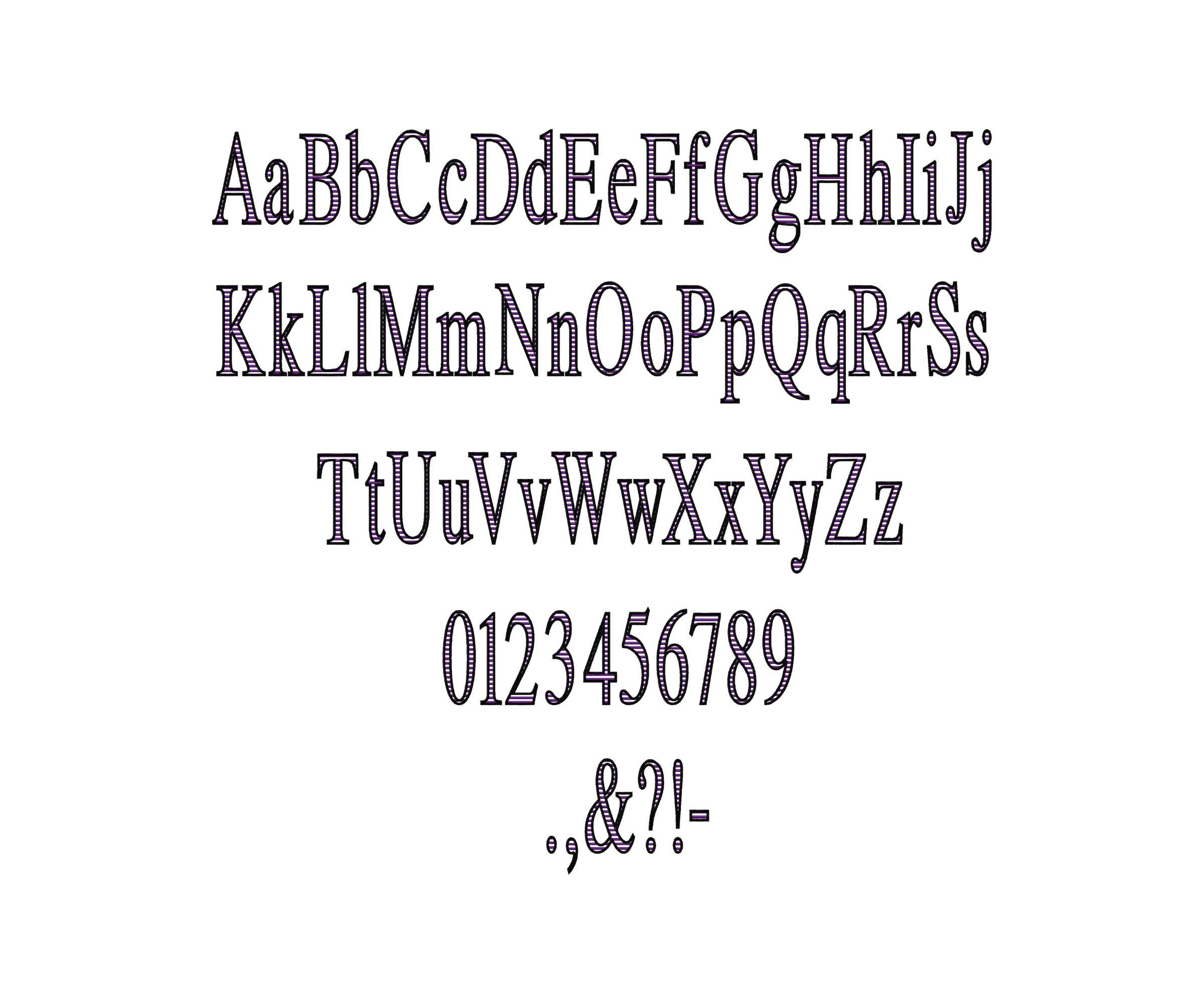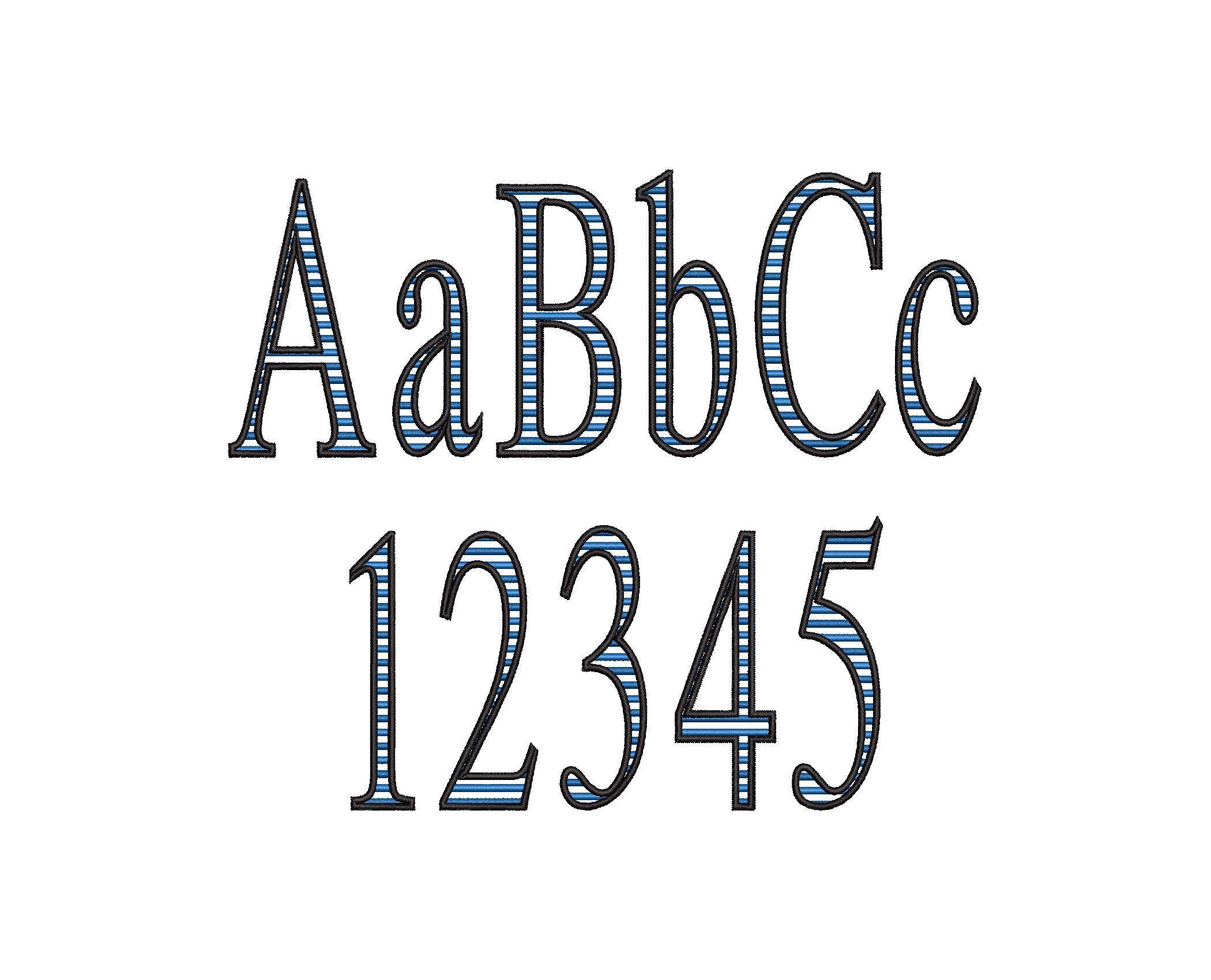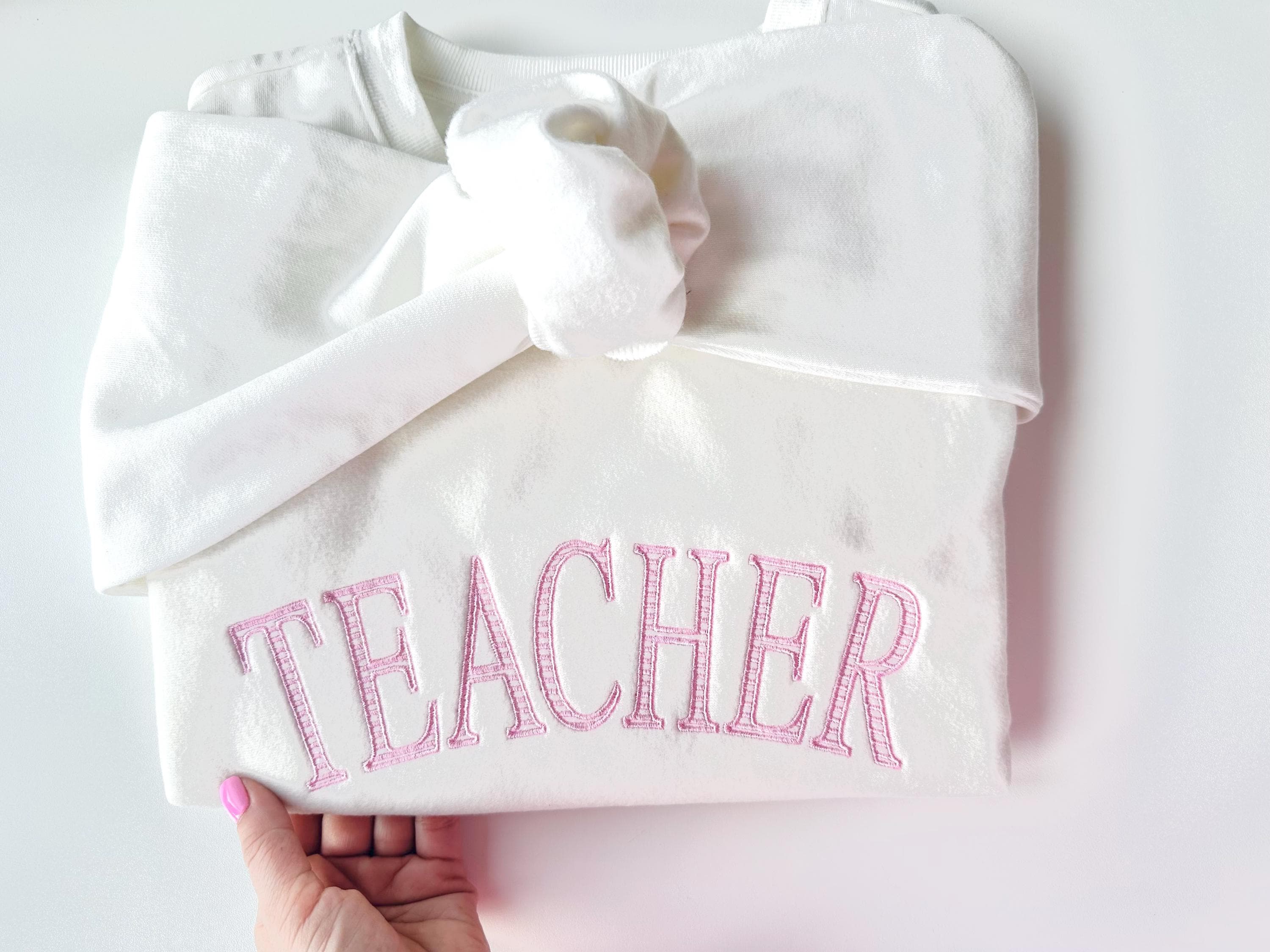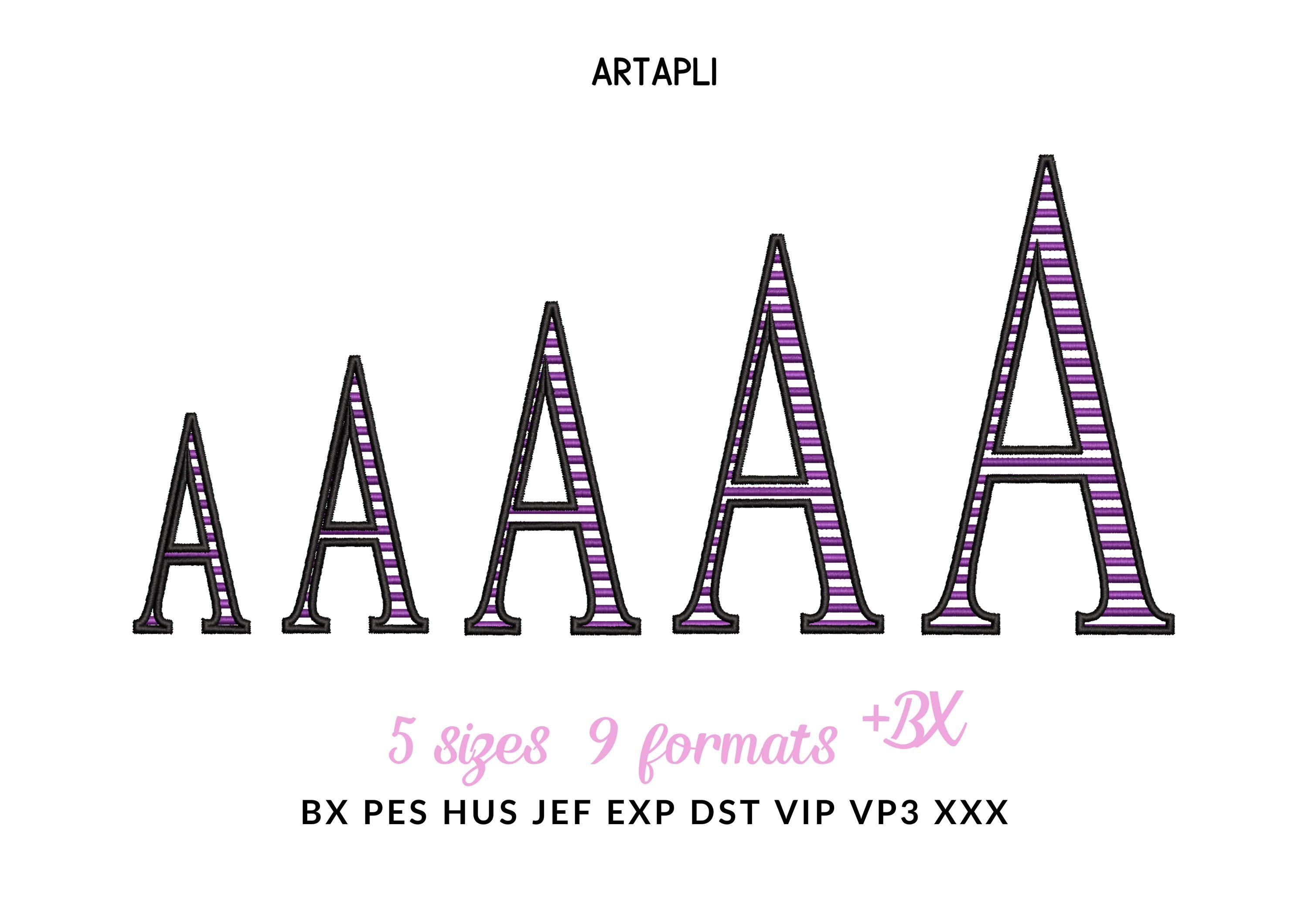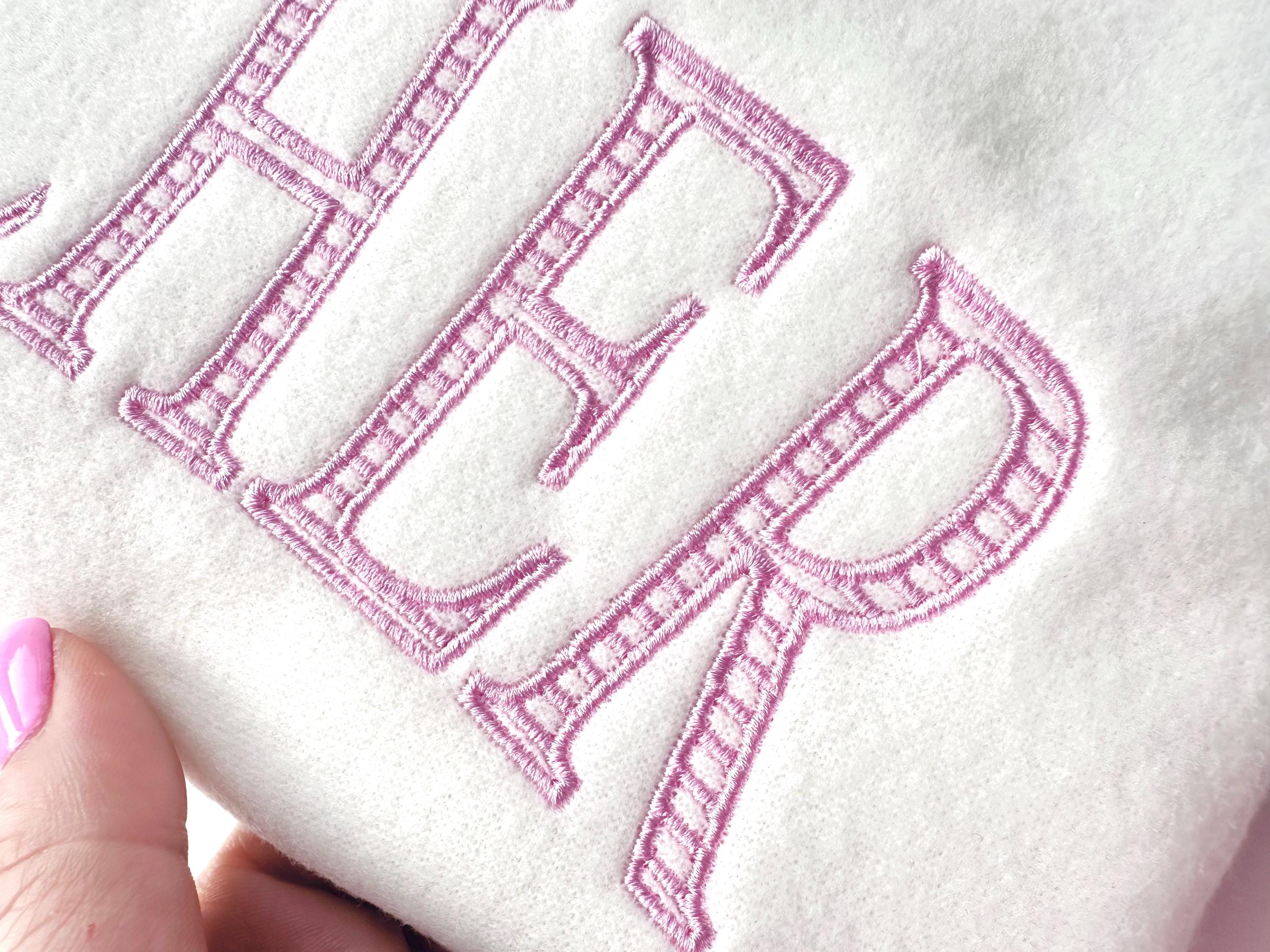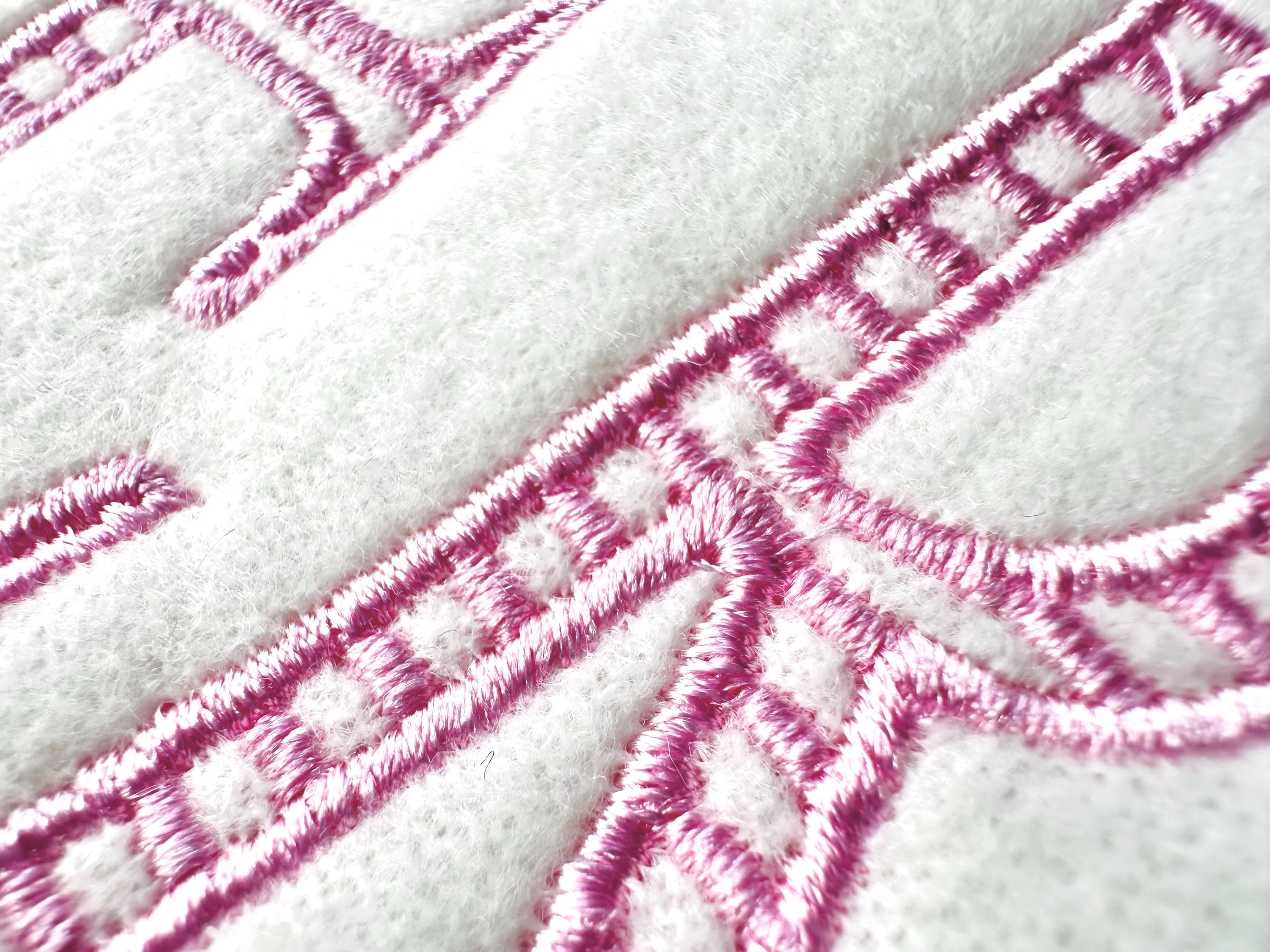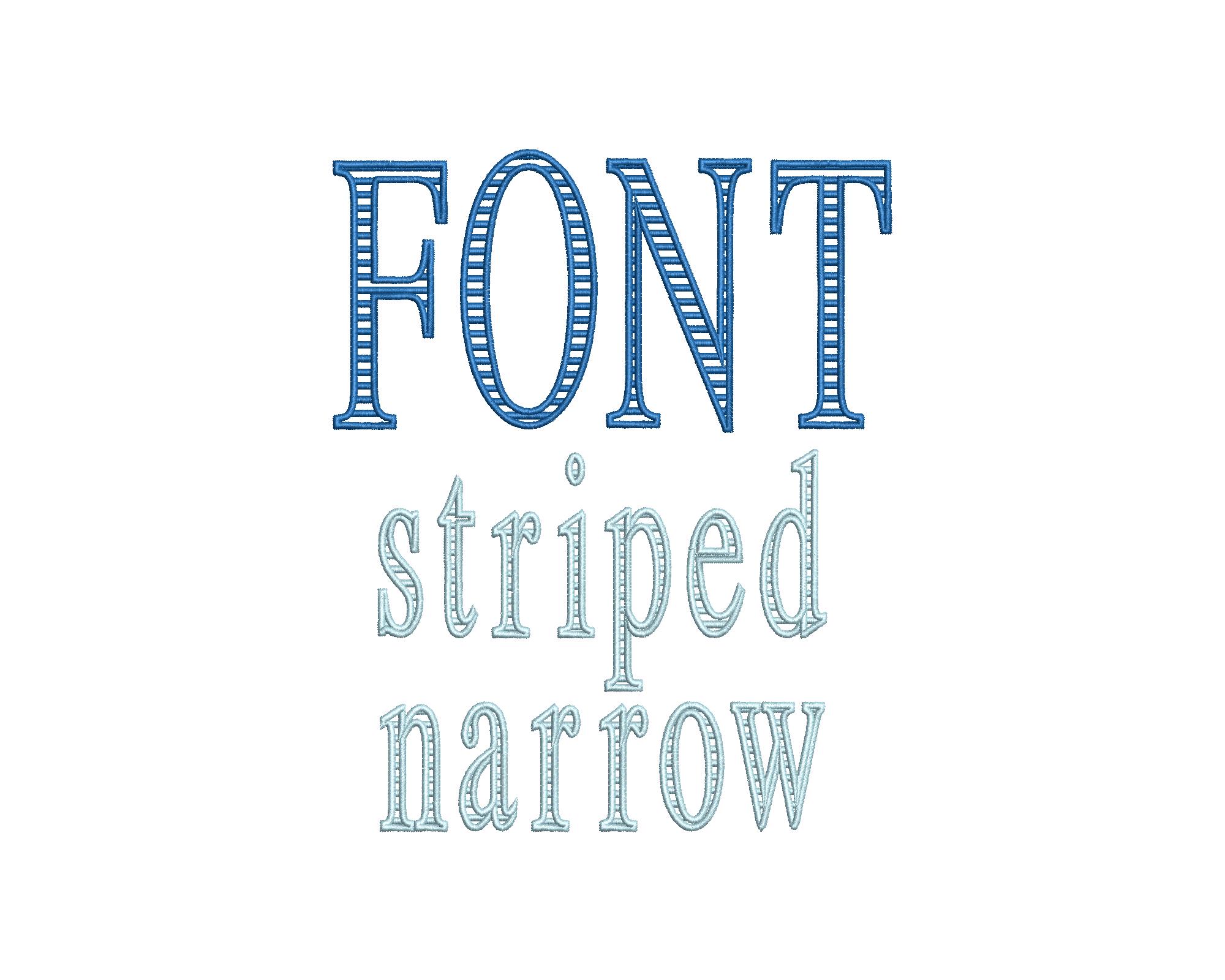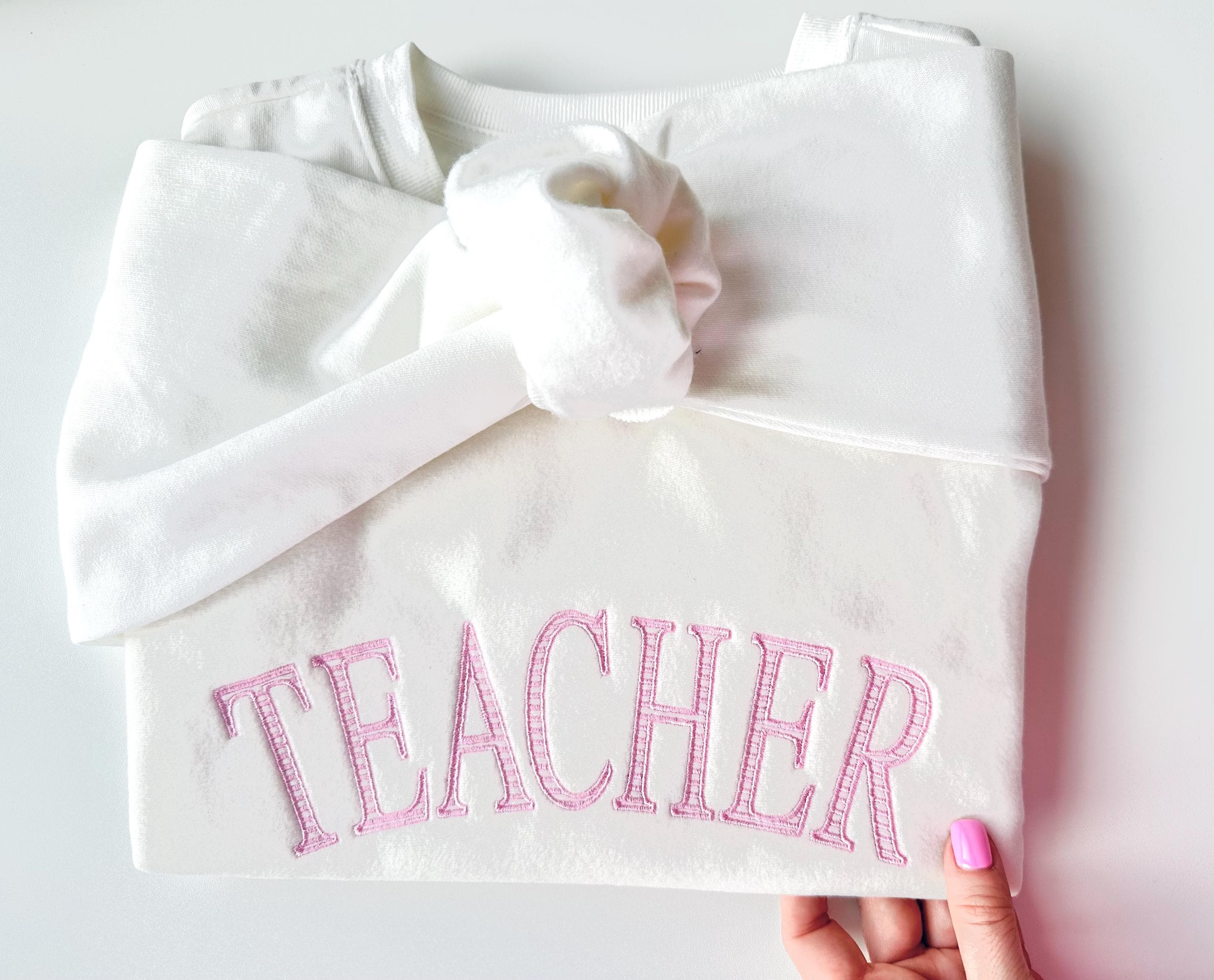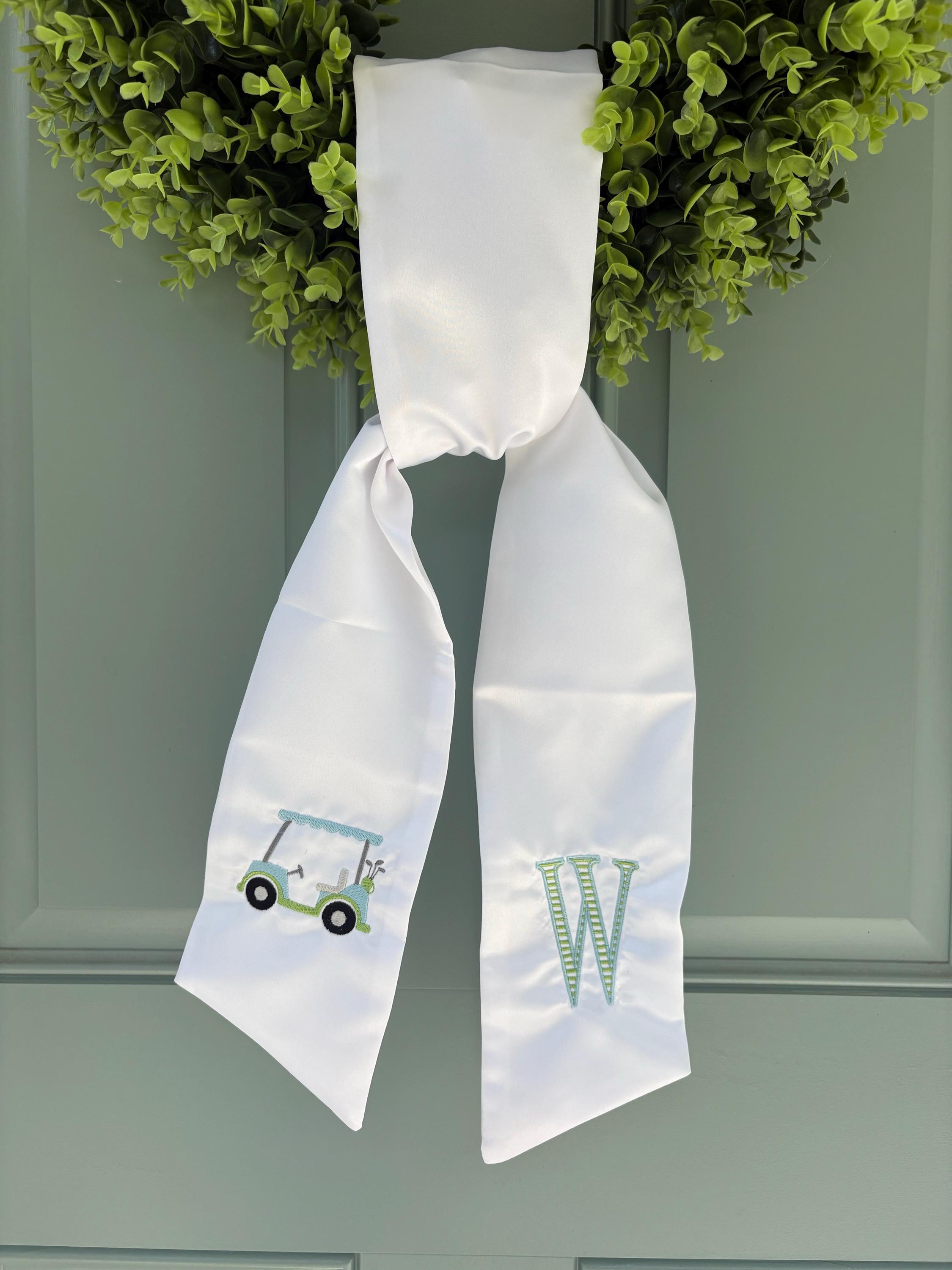
Entire alphabet A-Z uppercase and lowercase letters, numbers 0-9, and punctuation.
This is a transparent font, and the background fabric looks through. Stunning effect!